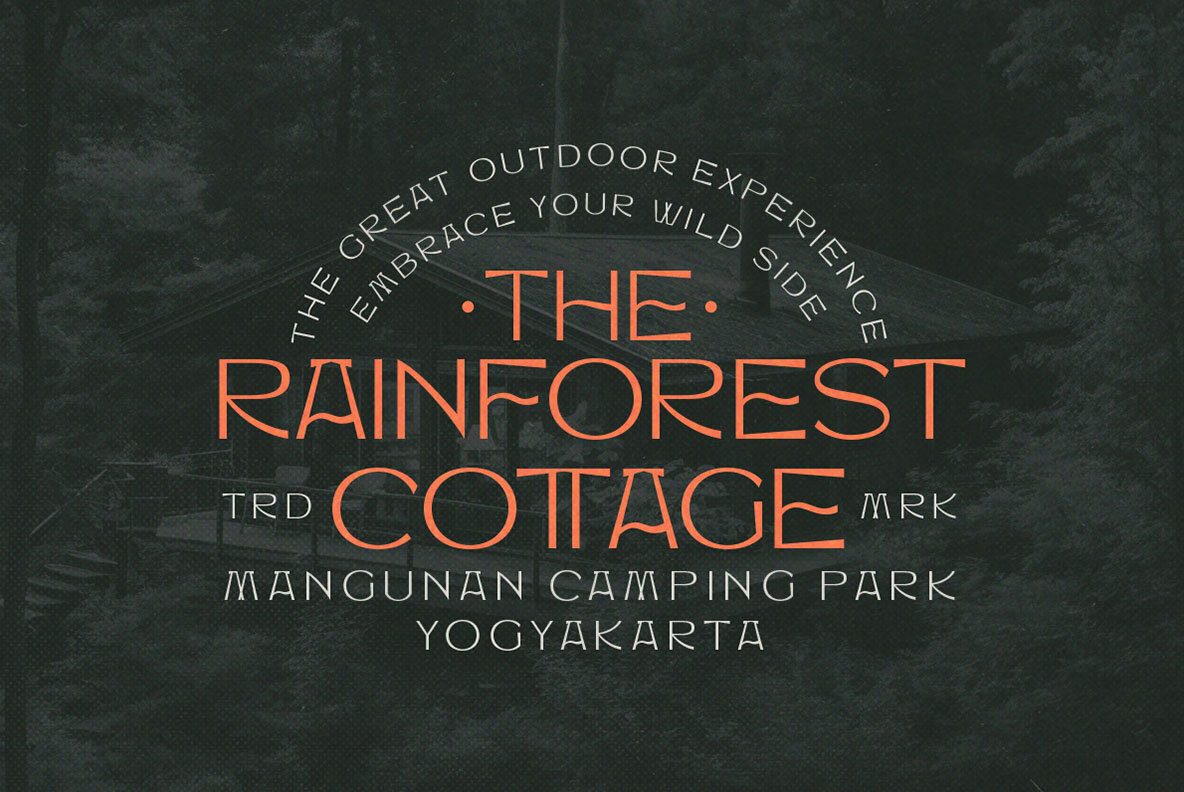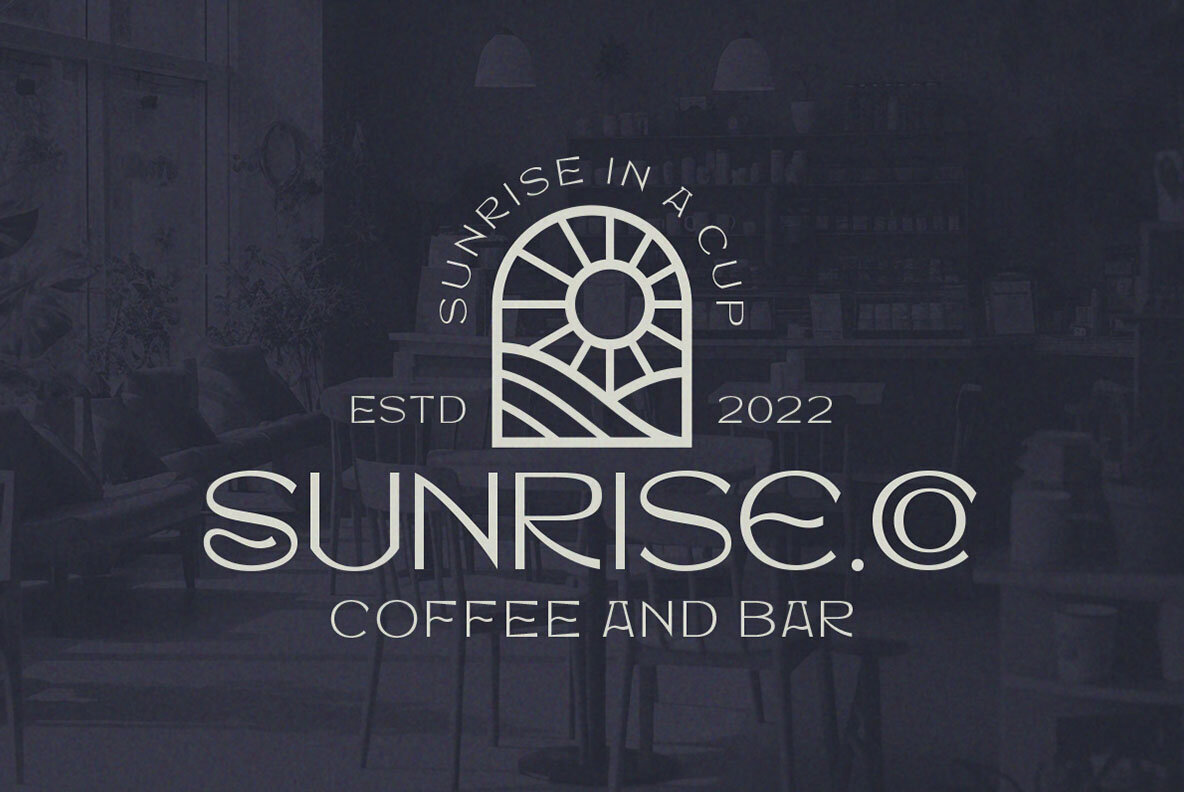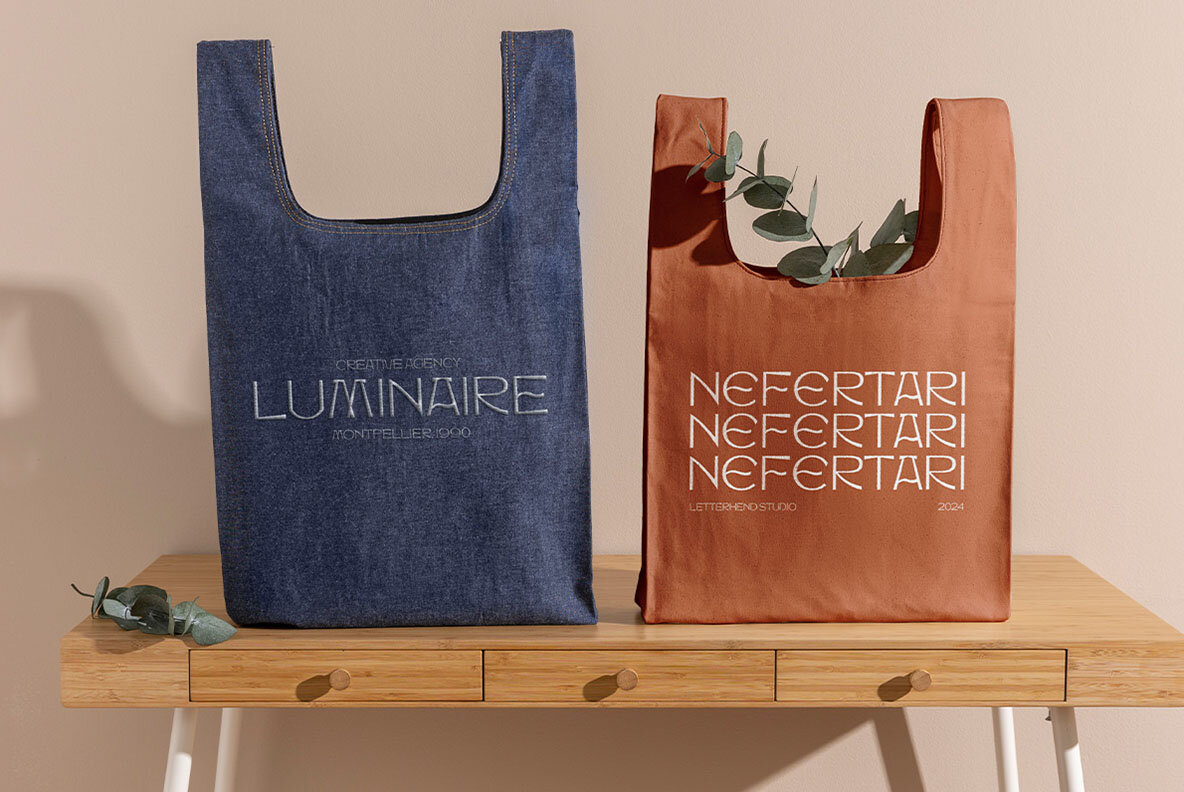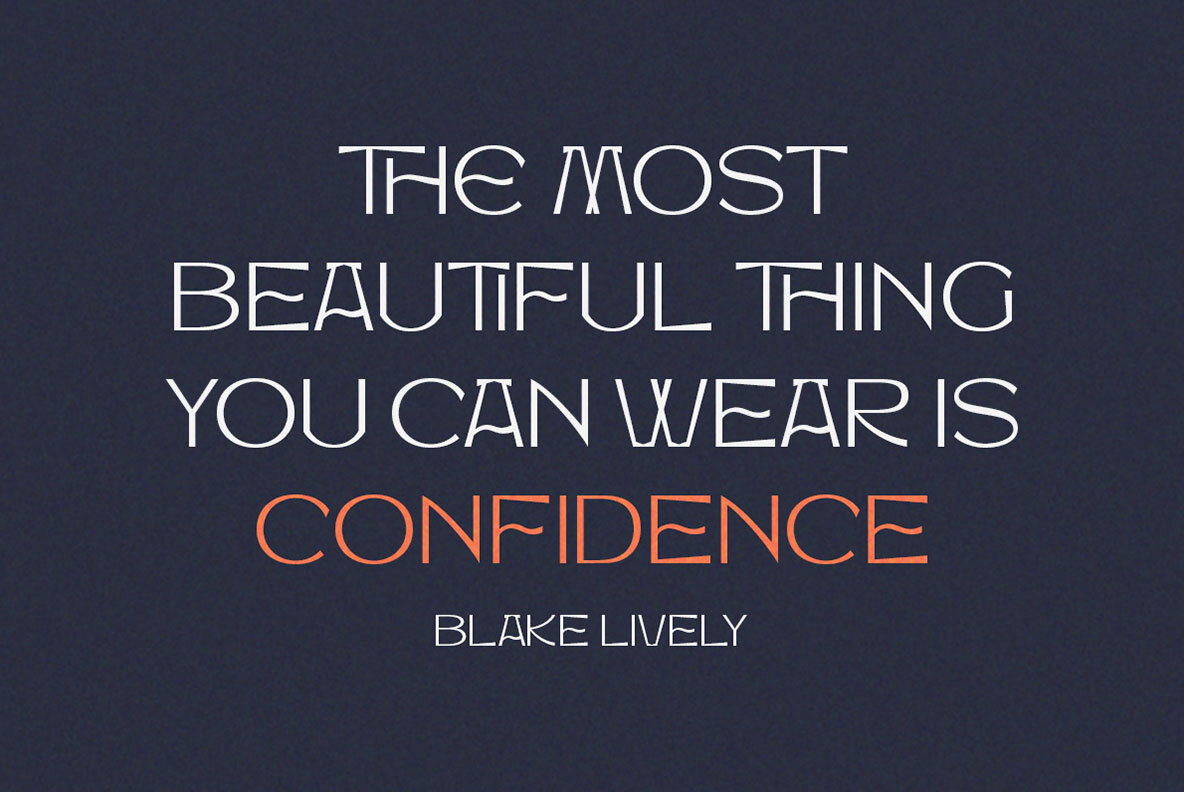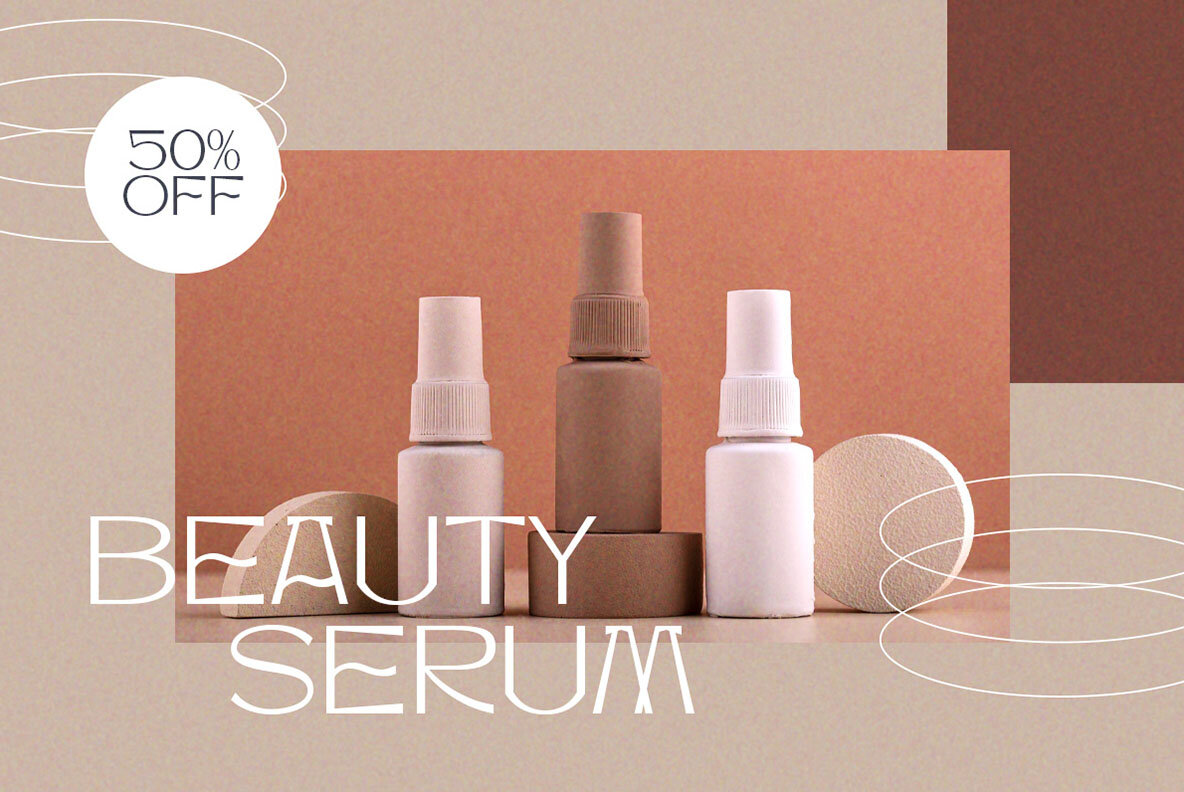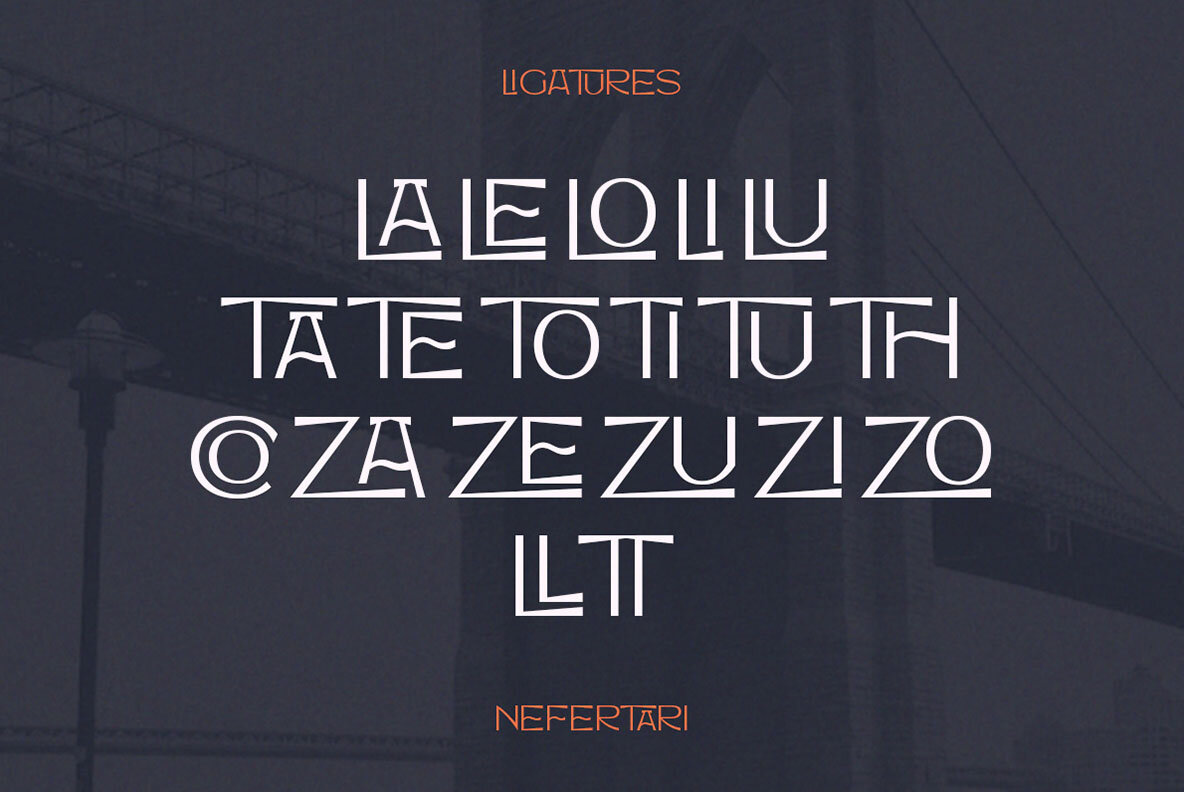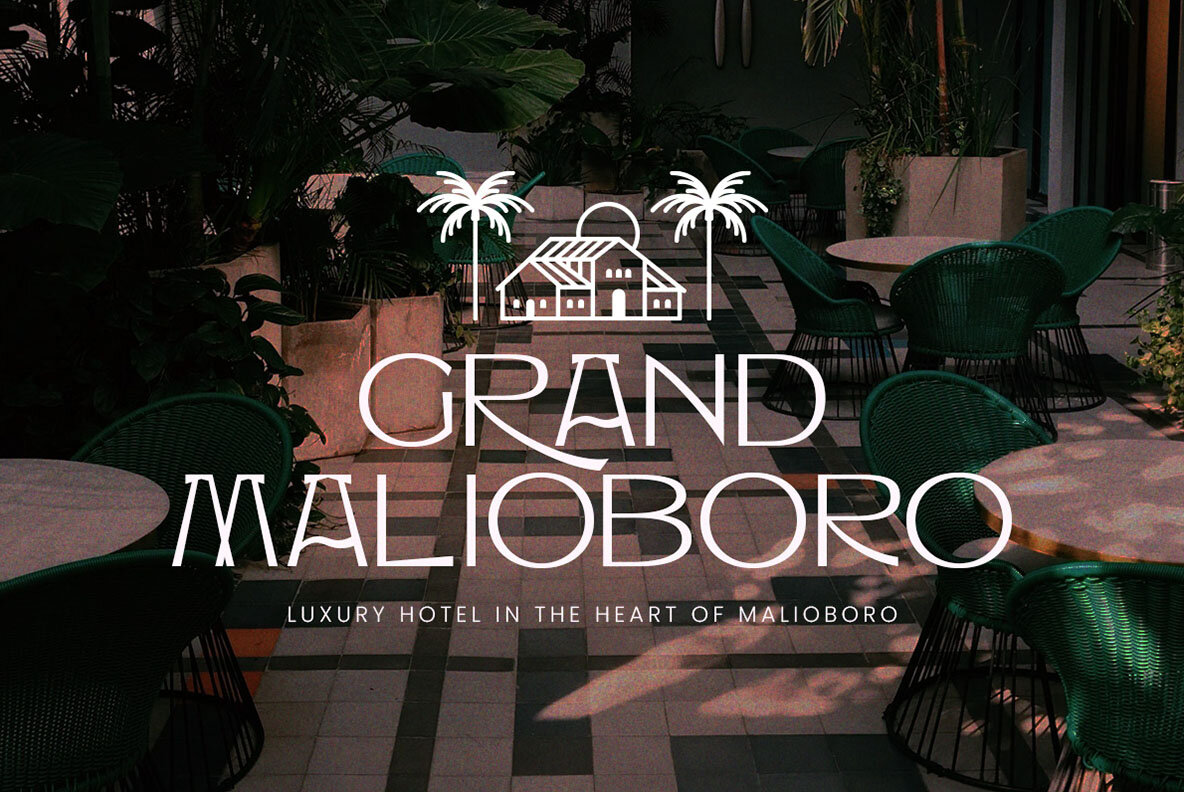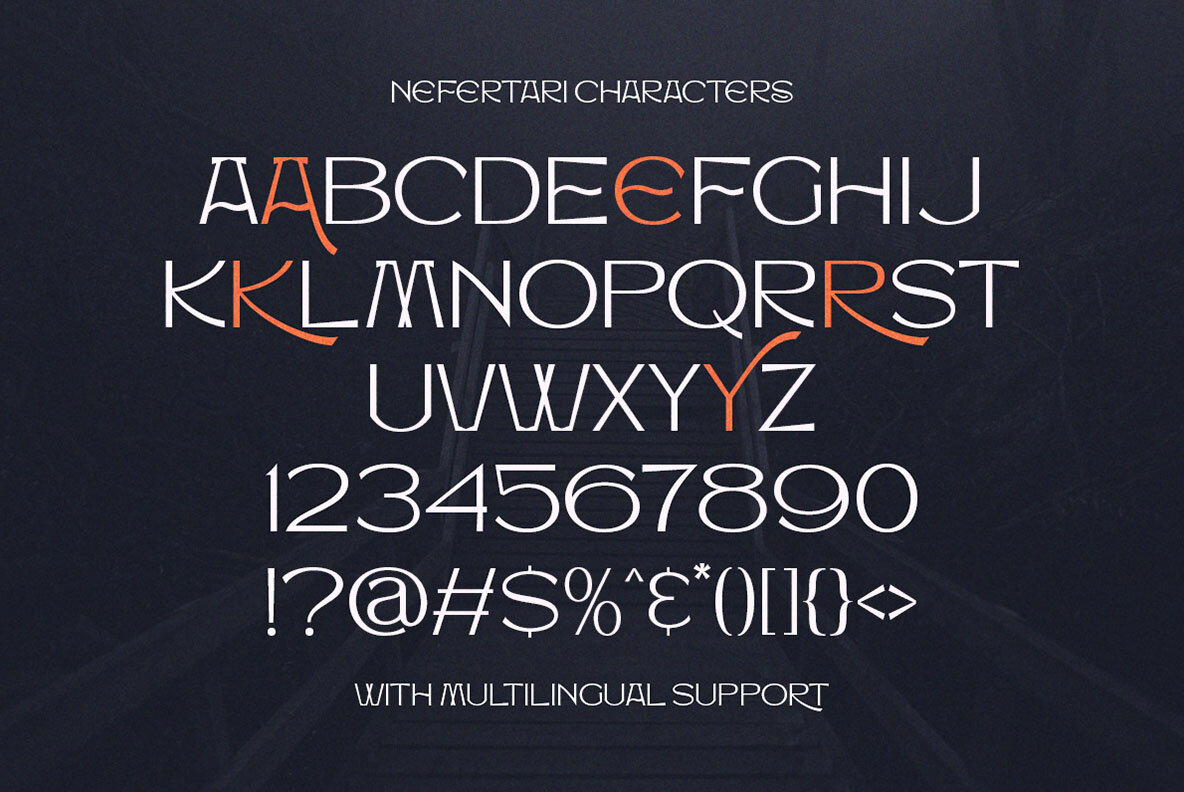
Nefertari Font
Nefertari Regular
Nefertari is a new display with unique letterform. This typeface has been made carefully to make sure its premium quality. Very suitable for logo, headline, tittle, and the other various formal forms such as invitations, labels, logos, magazines, books, greeting / wedding cards, packaging, fashion, make up, stationery, novels, labels or any type of advertising purpose. Features: We highly recommend using a program that supports OpenType features and Glyphs panels like many of Adobe apps and Corel Draw, so you can see and access all Glyph variations.